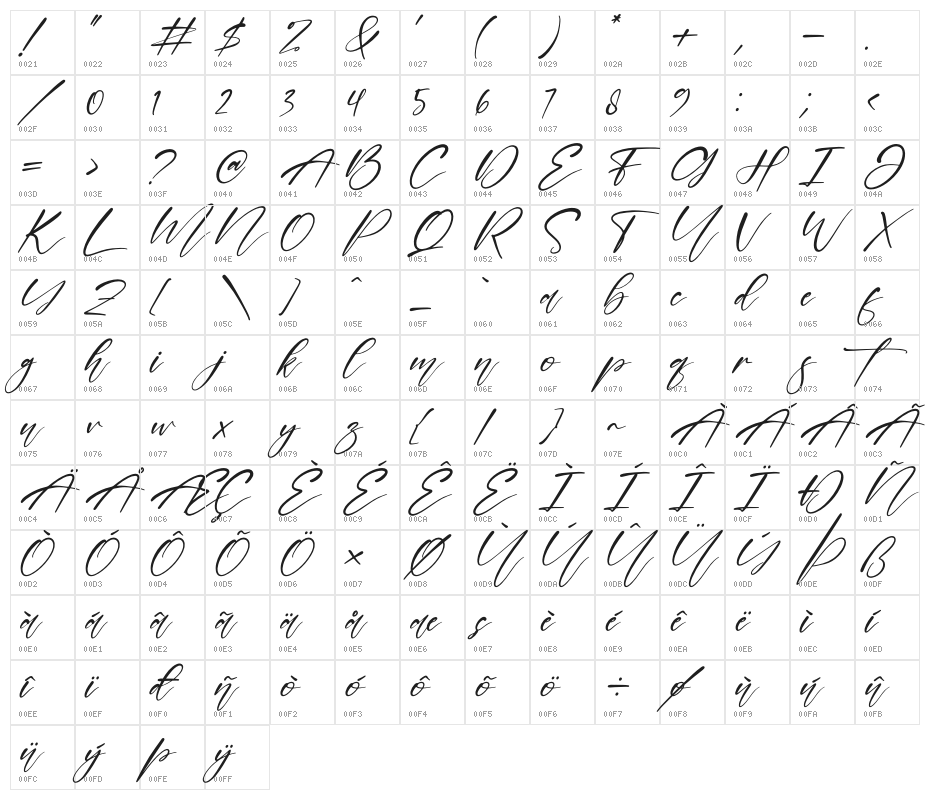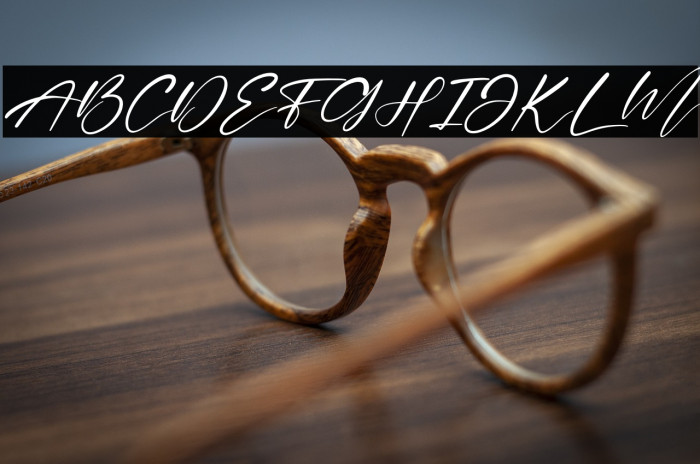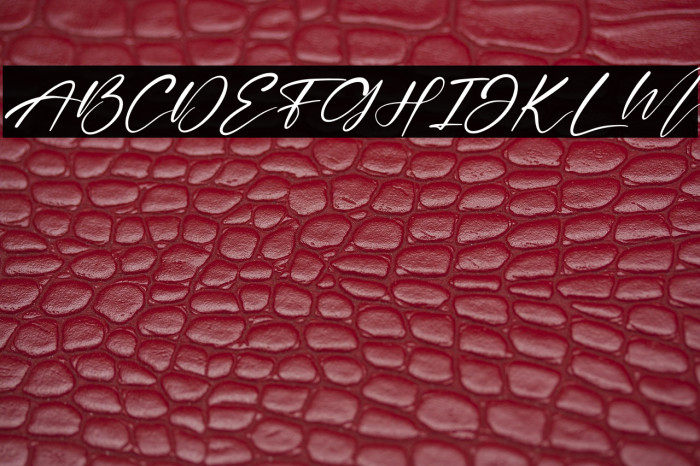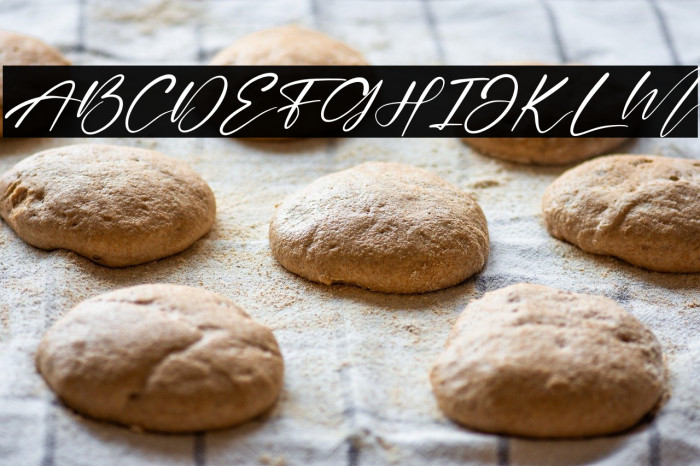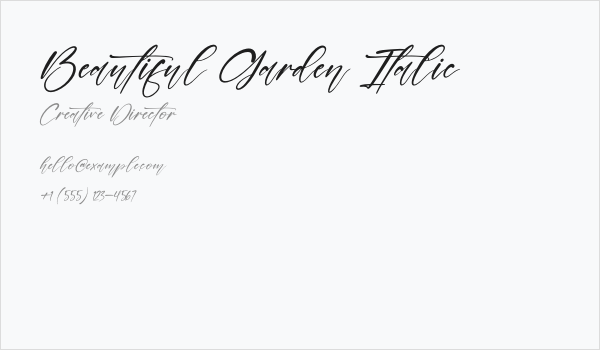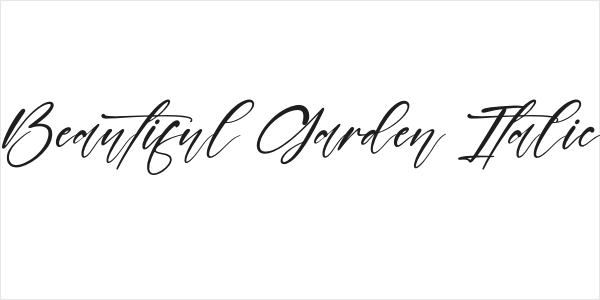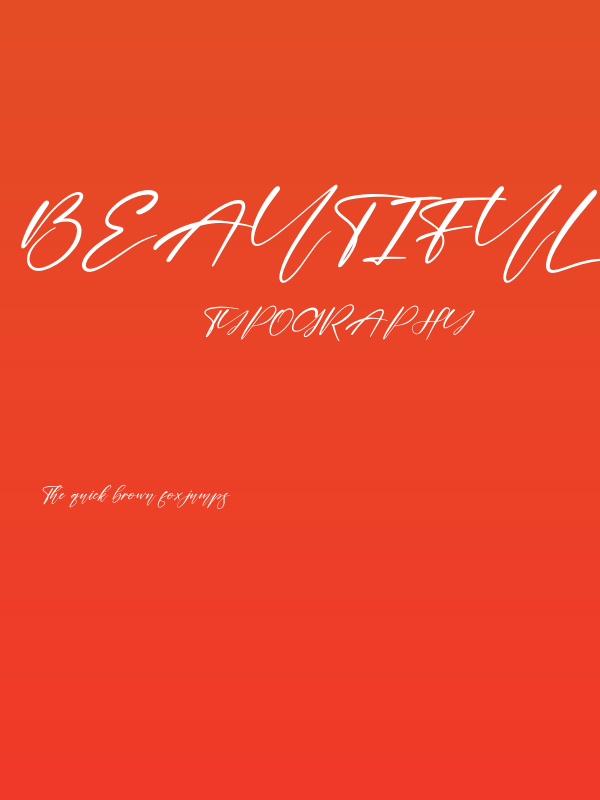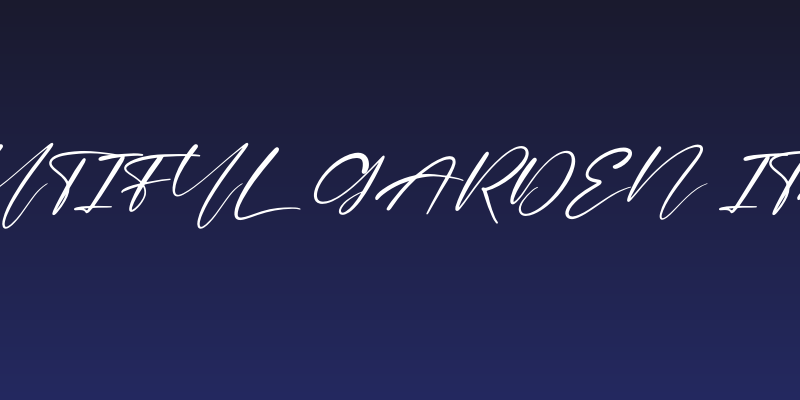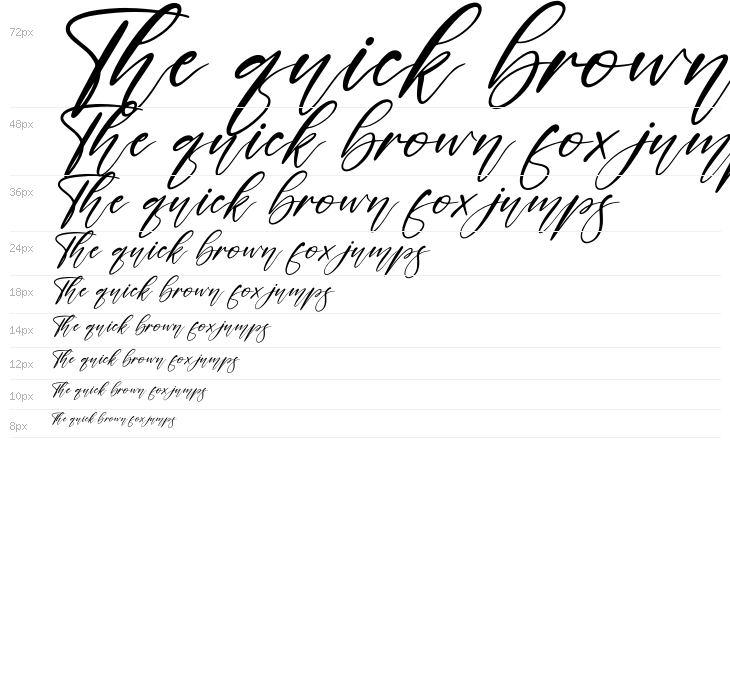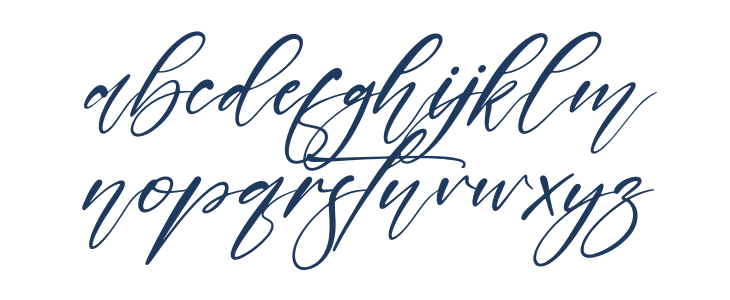
Beautiful Garden Italic Font
Beautiful Garden Italic Description
This font exudes elegance and fluidity with its cursive, handwritten style. The letters are gracefully connected, creating a seamless flow that mimics natural handwriting. Each character is crafted with a slight slant, enhancing its italic nature. The strokes vary in thickness, adding a dynamic and lively feel to the text. The uppercase letters are bold and prominent, while the lowercase letters maintain a delicate balance of curves and loops. The numerals and special characters are designed with the same attention to detail, ensuring consistency throughout the font. This font is perfect for projects that require a personal touch, such as invitations, greeting cards, or branding materials.
| Overall Style | Elegant, Fluid, Handwritten |
| Use Case | Invitations, Greeting cards, Branding |
| Proposed Projects | Ideal for wedding invitations, greeting cards, personal branding, and elegant logos. |